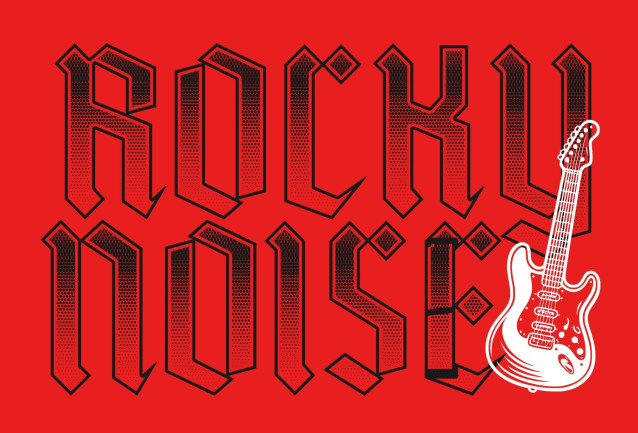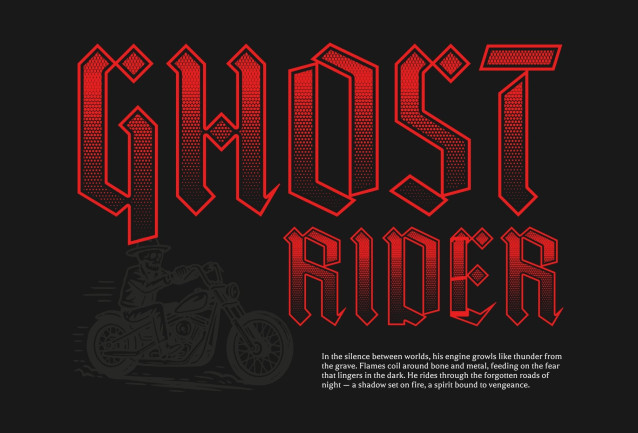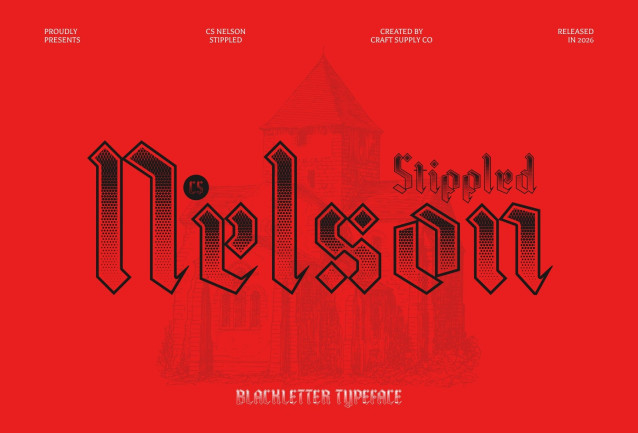
CS Nelson Stippled Font
CS Nelson Stippled – Gothic Font: Drama and Elegance from a Bygone Era
Classic Gothic Display with Stippled Character
This is a dramatic Gothic display font inspired by medieval and Victorian lettering. Its sharp, pointed edges, ornate serifs, and strong vertical strokes create a powerful historical presence, while the stippled texture adds a handcrafted, vintage surface that enhances depth and visual intrigue.
Bold, Angular Forms with Historic Charm
The font’s angular shapes and intricate detailing convey strength, authority, and timeless elegance. The stippled effect softens the bold structure with a subtle textured finish, evoking traditional printmaking and antique engraving techniques while maintaining clarity for modern use.
Expressive and Dramatic Visual Impact
Designed to command attention, this font excels in large headlines and statement typography. Its combination of Gothic elegance and textured character creates a striking balance of drama and refinement, perfect for projects that require a powerful visual voice.